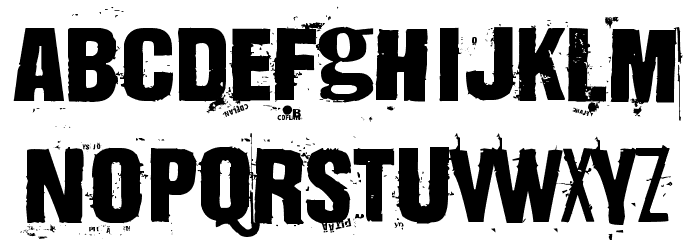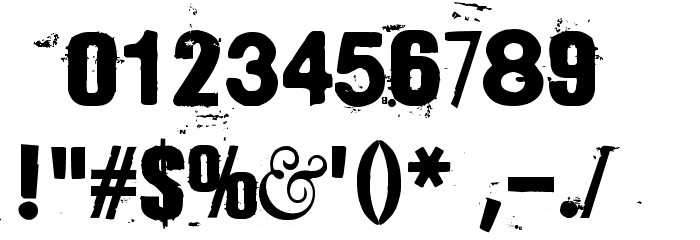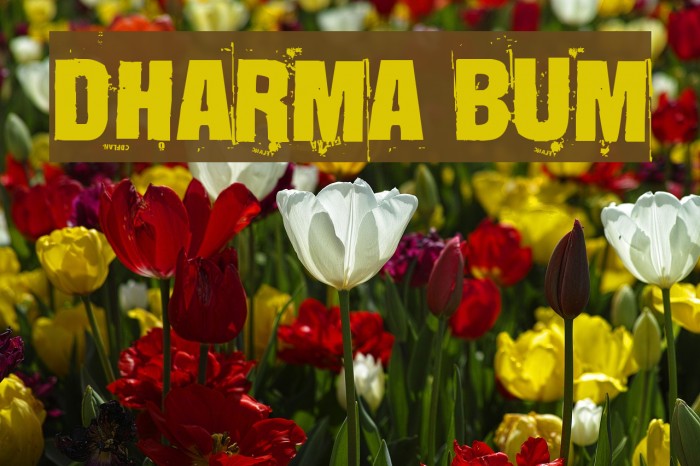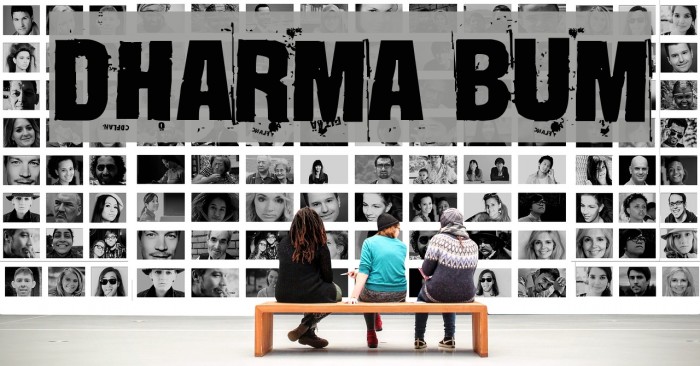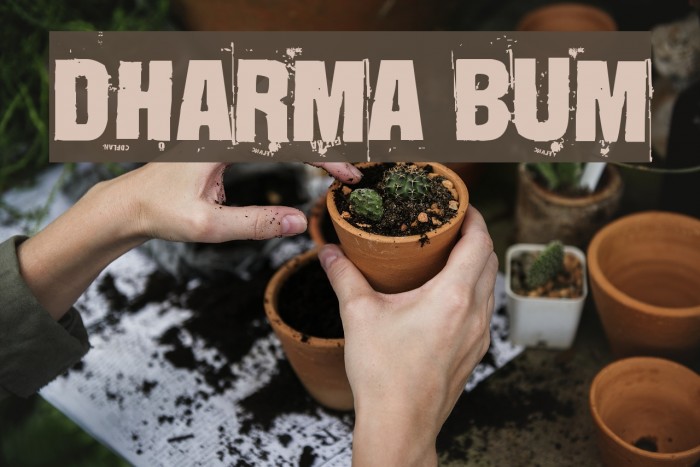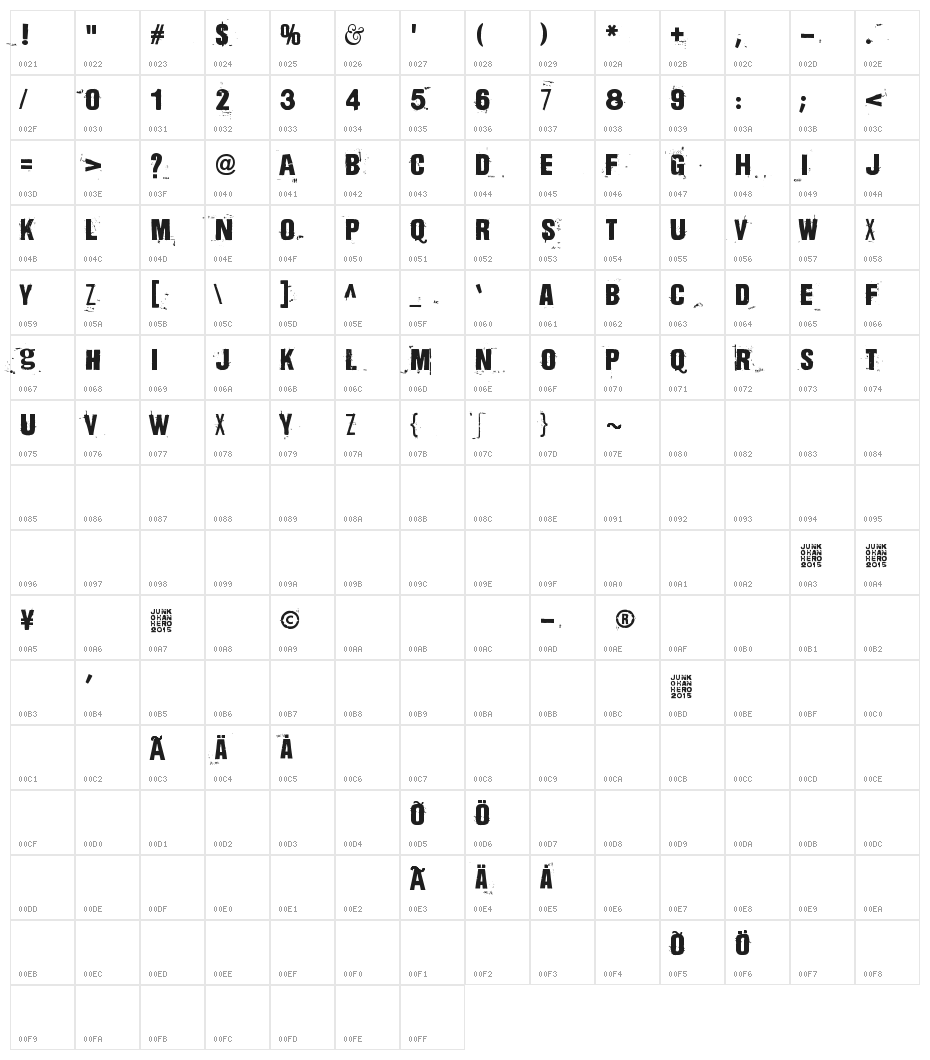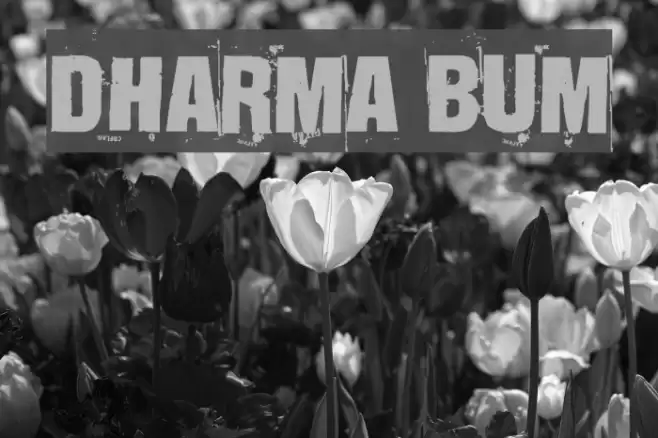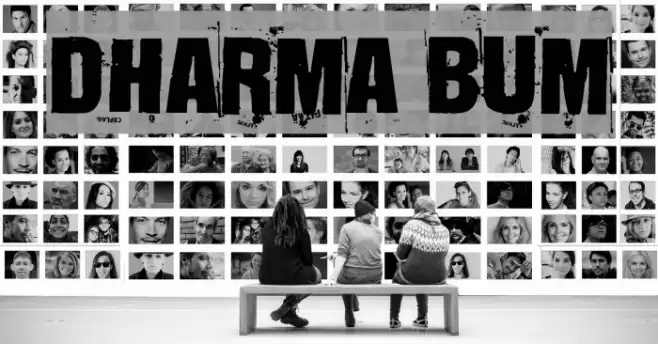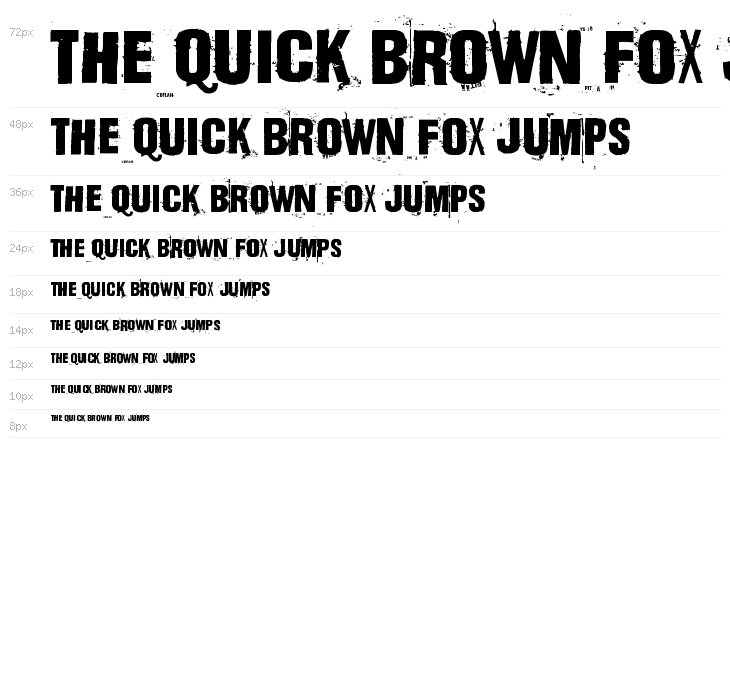
Dharma Bum Font
This font exhibits a rugged, distressed style with a bold and impactful presence. The characters are heavily textured, giving them a worn and vintage appearance, reminiscent of old typewriter or newspaper print. The uppercase letters are particularly striking, with a strong, blocky form that commands attention. The lowercase letters maintain the same distressed aesthetic, ensuring consistency throughout the typeface. Numbers and special characters are equally bold and textured, making them suitable for a variety of creative applications. The overall look is both nostalgic and edgy, perfect for projects that require a touch of retro flair.
A bold, distressed font with a vintage, textured appearance.
- Proposed Projects: Ideal for poster designs, album covers, vintage-themed branding, and creative editorial layouts.
- Overall Style: Vintage